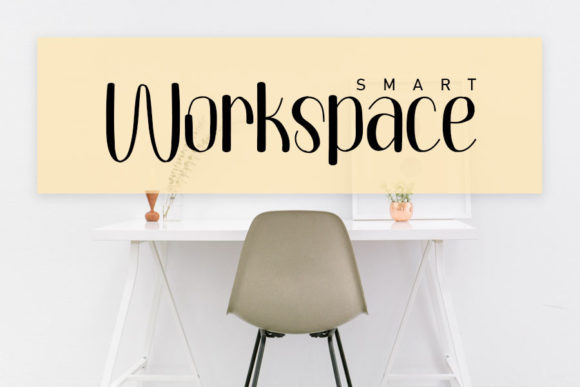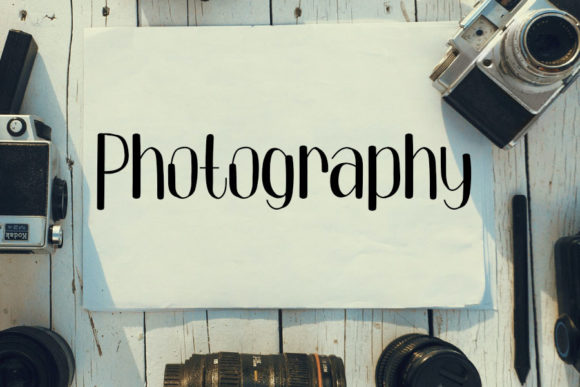
Just Married Font
db-ku.com - Script & Handwritten -- Just Married is a cute and clean handwritten font. No matter the topic, this font will be an incredible asset to your fonts’ library, as it has the potential to elevate any creation.